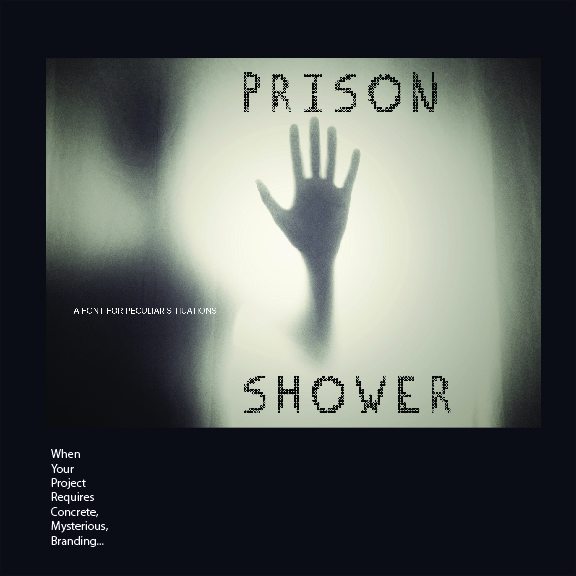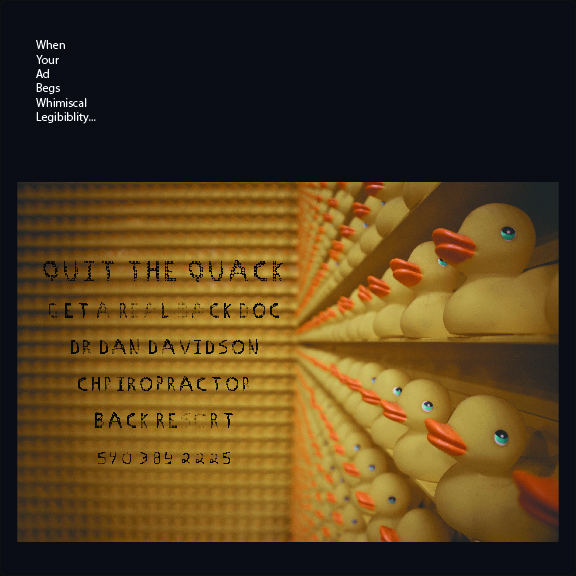
• When Your Plot Requires Cryptic, Secret, Code...
When Your Project Requires Concrete, Mysterious, Branding...
When You Dream Beyond Cliche Typography...
When Your Client Prefers Freehand Feel...
When Your Business Hints Exclusive Niche...
When Your Story Foreshadows Unique Supernatural Identity...
When Your Ad Begs Whimiscal Legibiblity...
Prison Showerby DaveDavidson